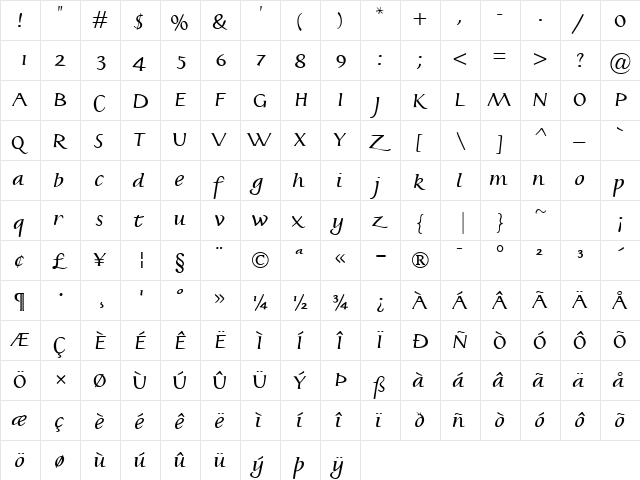
Jonatan Regular
Design Context for Jonatan Typeface
Jonatan is a composed and adaptable typeface that performs quietly and consistently across a wide range of design contexts.